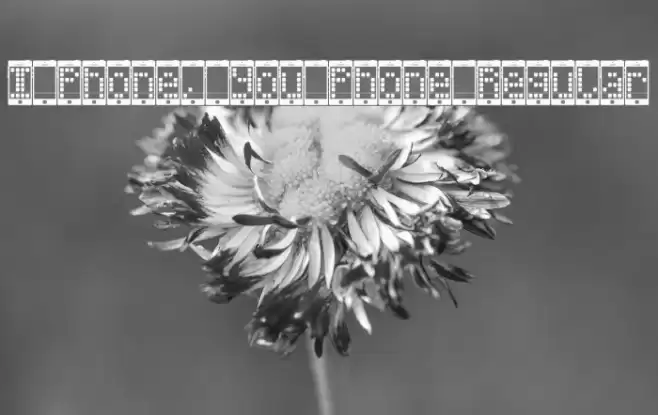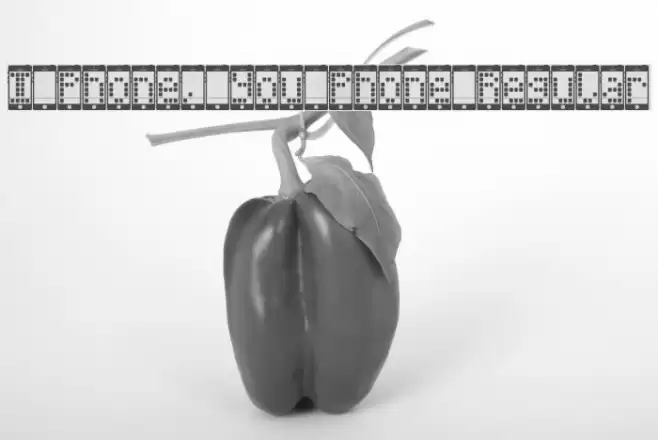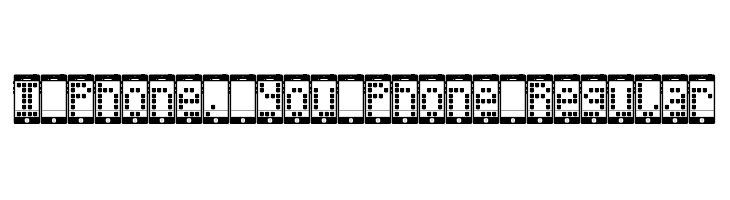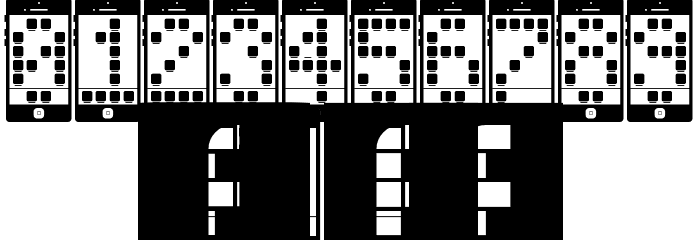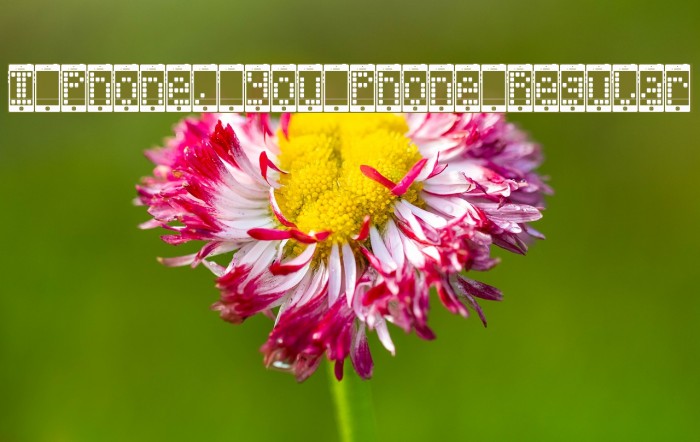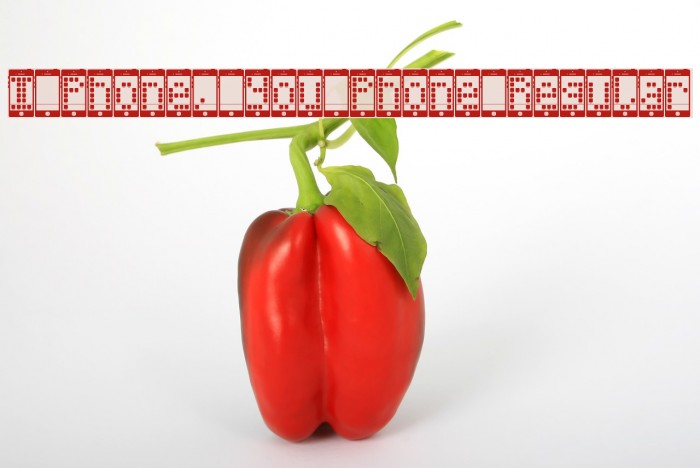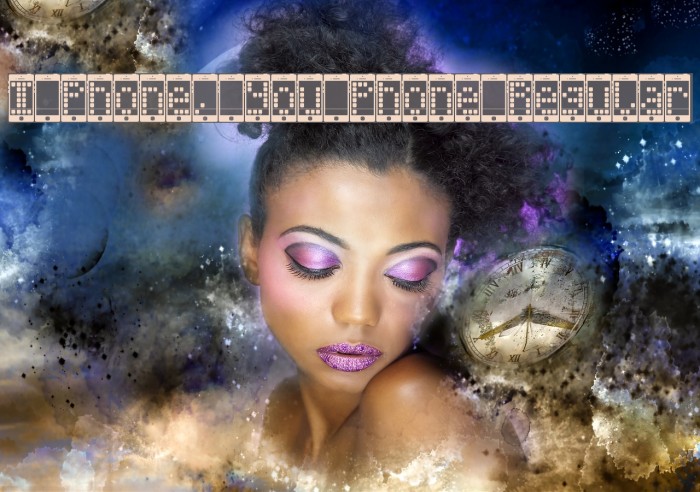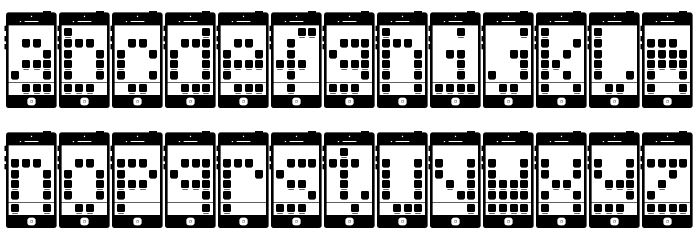
I Phone, You Phone Regular Font
I Phone, You Phone Regular Description
This font is a creative and playful design that mimics the appearance of smartphone screens. Each character is crafted to resemble a phone with the letter or number displayed as if it were an app icon or digital display. The design is highly decorative, with a modern and tech-inspired aesthetic. The characters are composed of bold, blocky shapes that give a pixelated effect, reminiscent of early digital displays. The font is unique and eye-catching, making it ideal for projects that require a tech-savvy or futuristic theme. The overall style is both fun and innovative, capturing the essence of digital communication.
A decorative font styled like smartphone screens with a tech-inspired, modern look from Futuristic fonts.
- Proposed Projects: Ideal for tech-themed posters, digital art projects, app-related branding, and playful graphic designs.
- Overall Style: Modern, Decorative